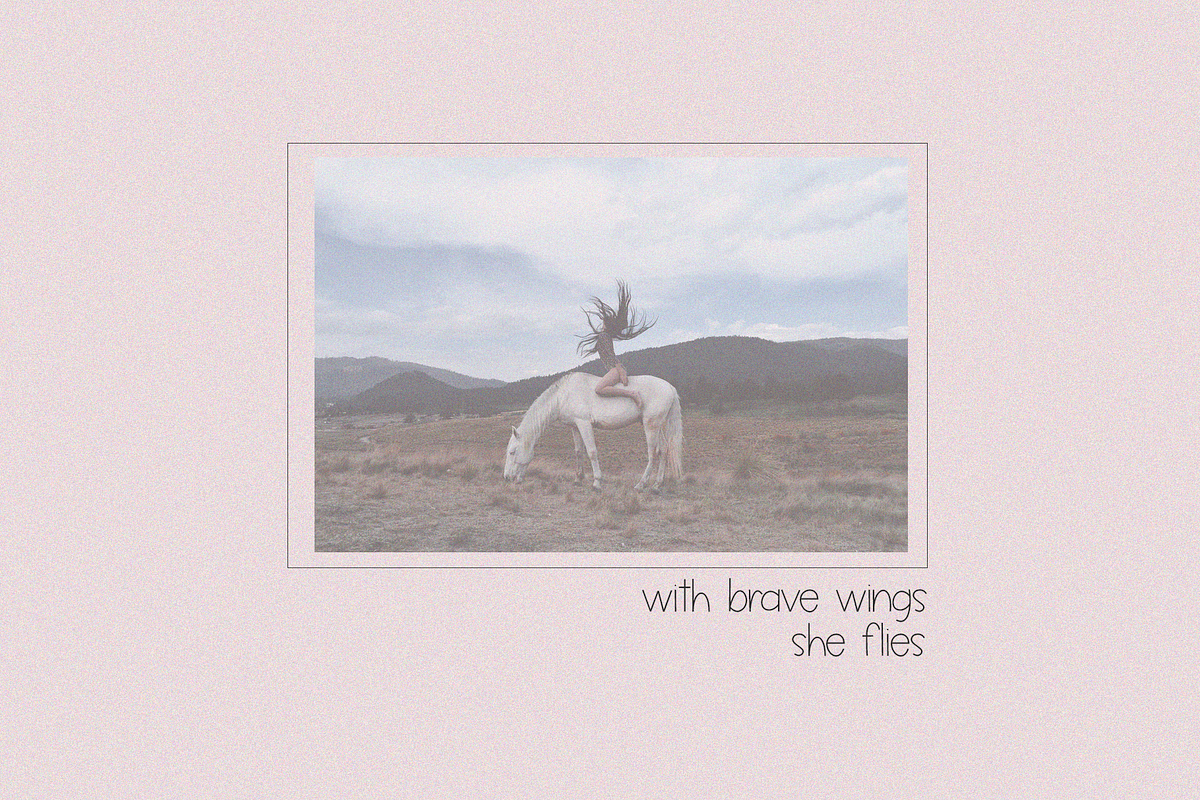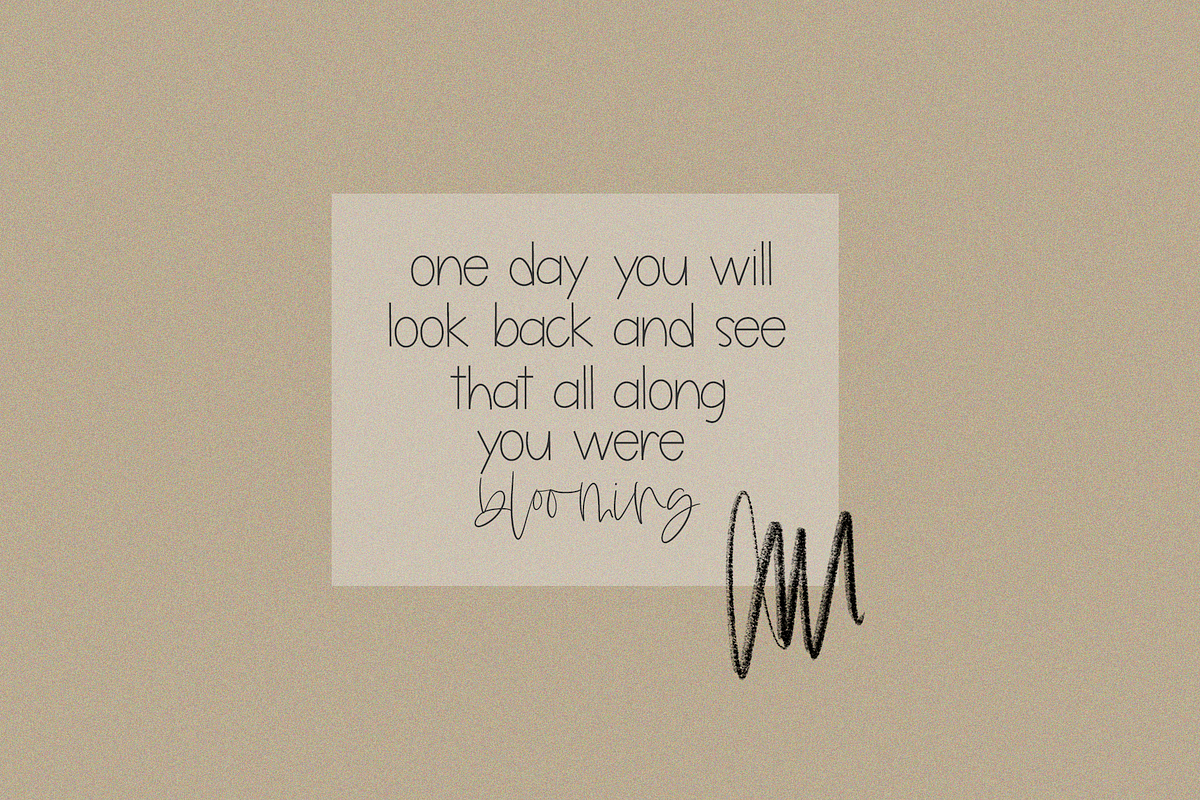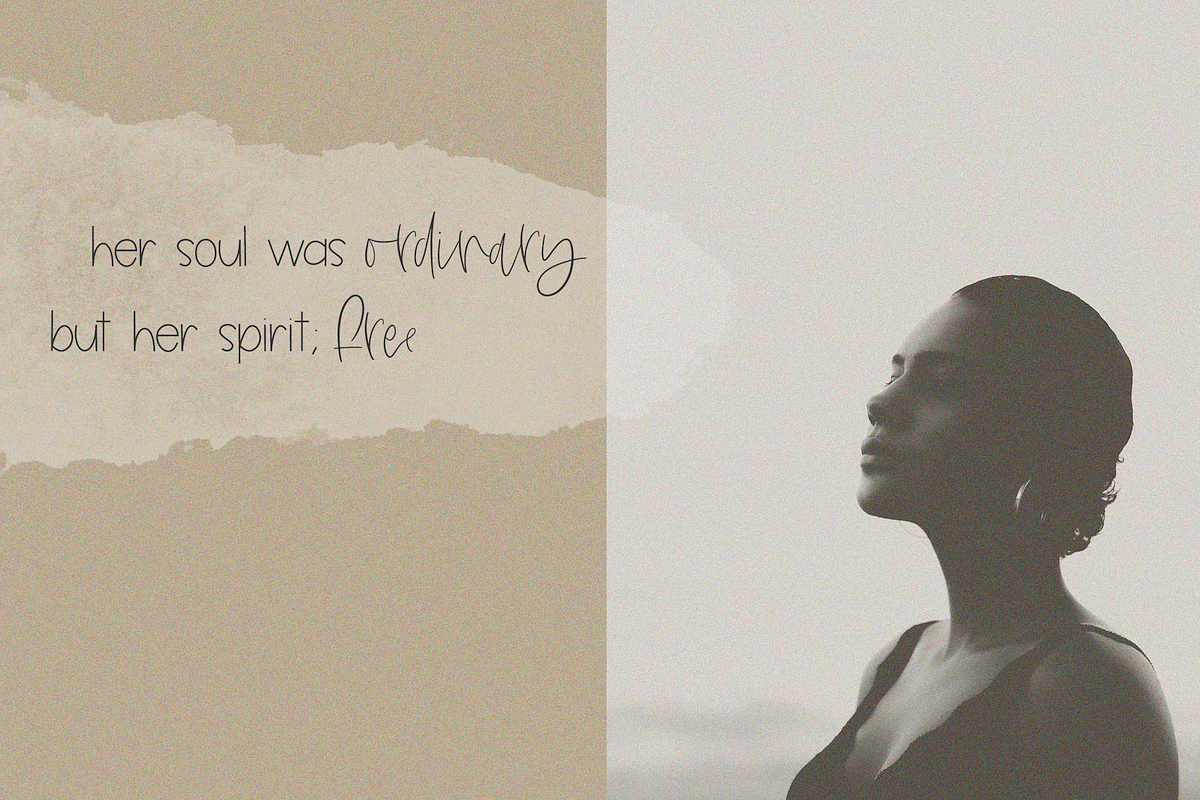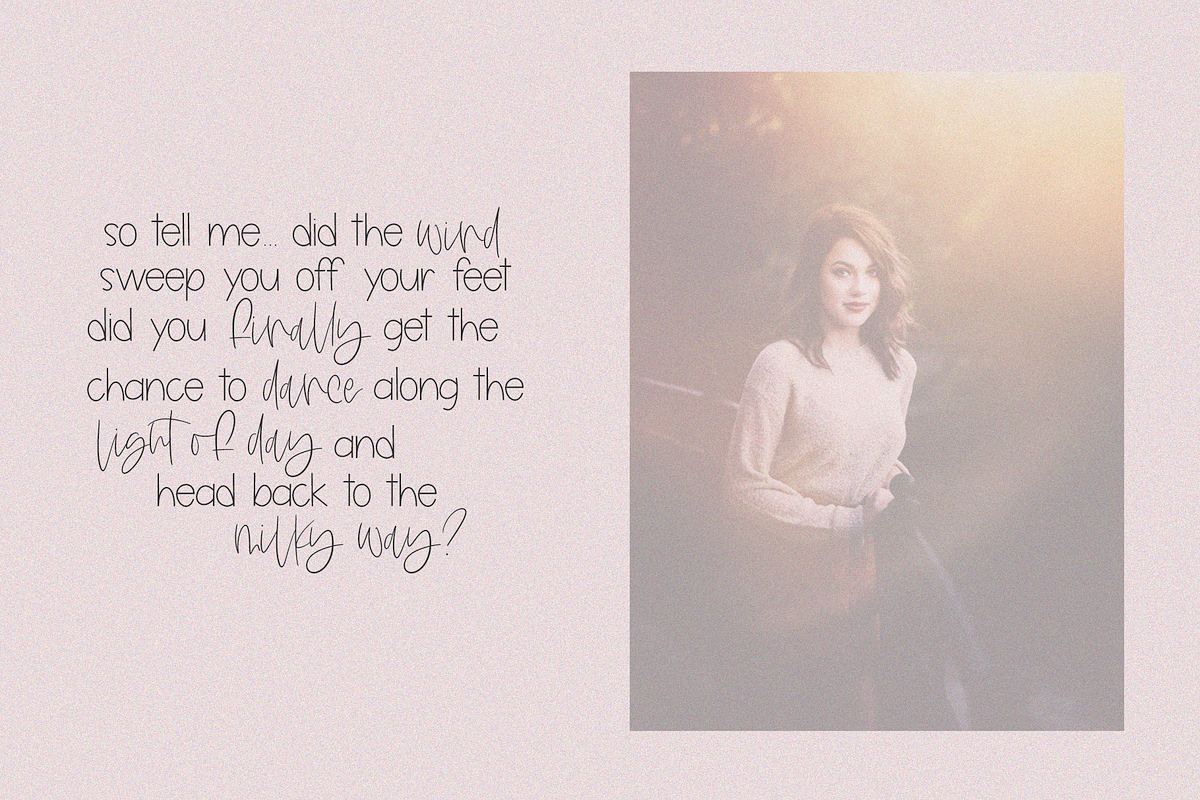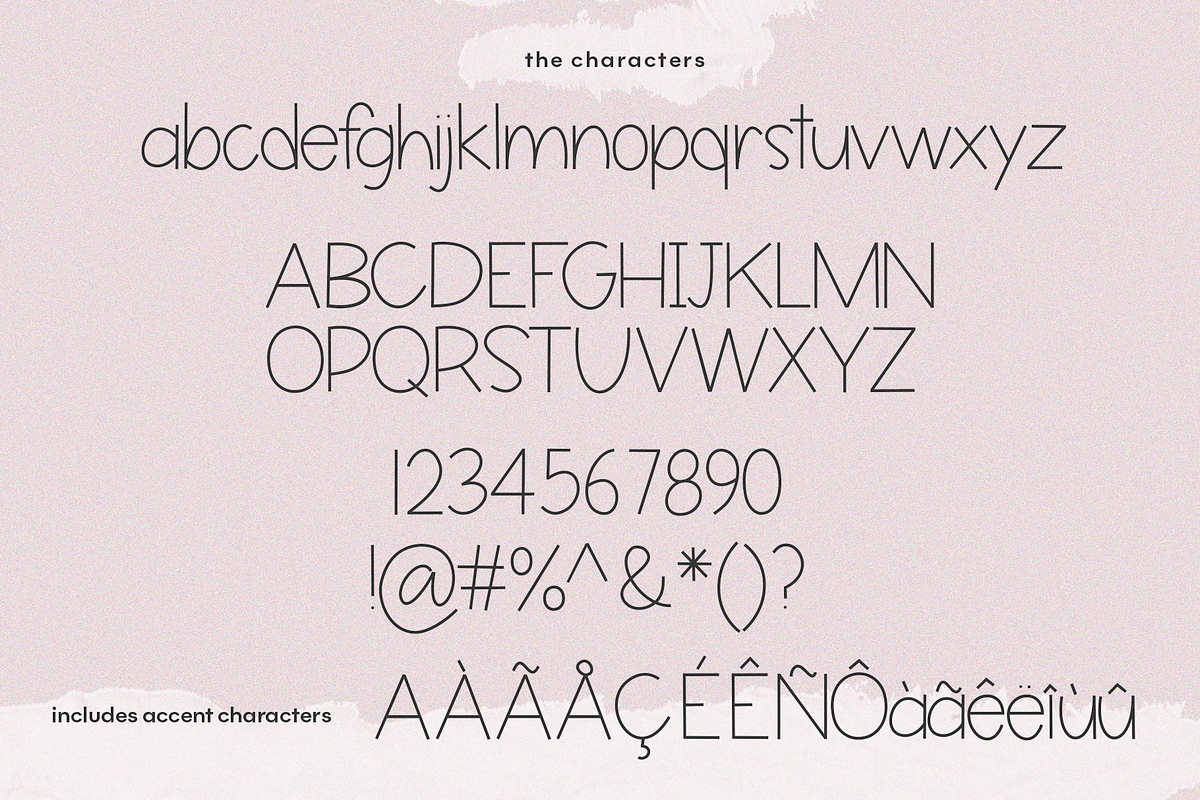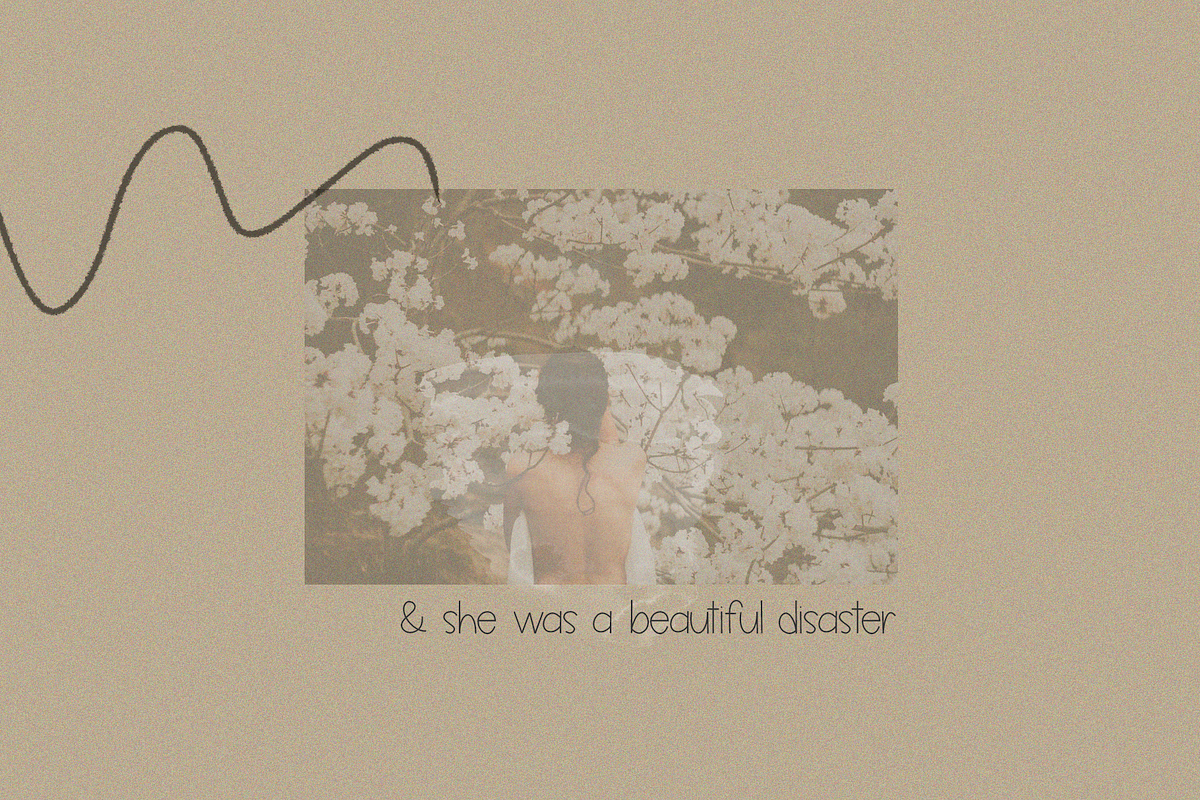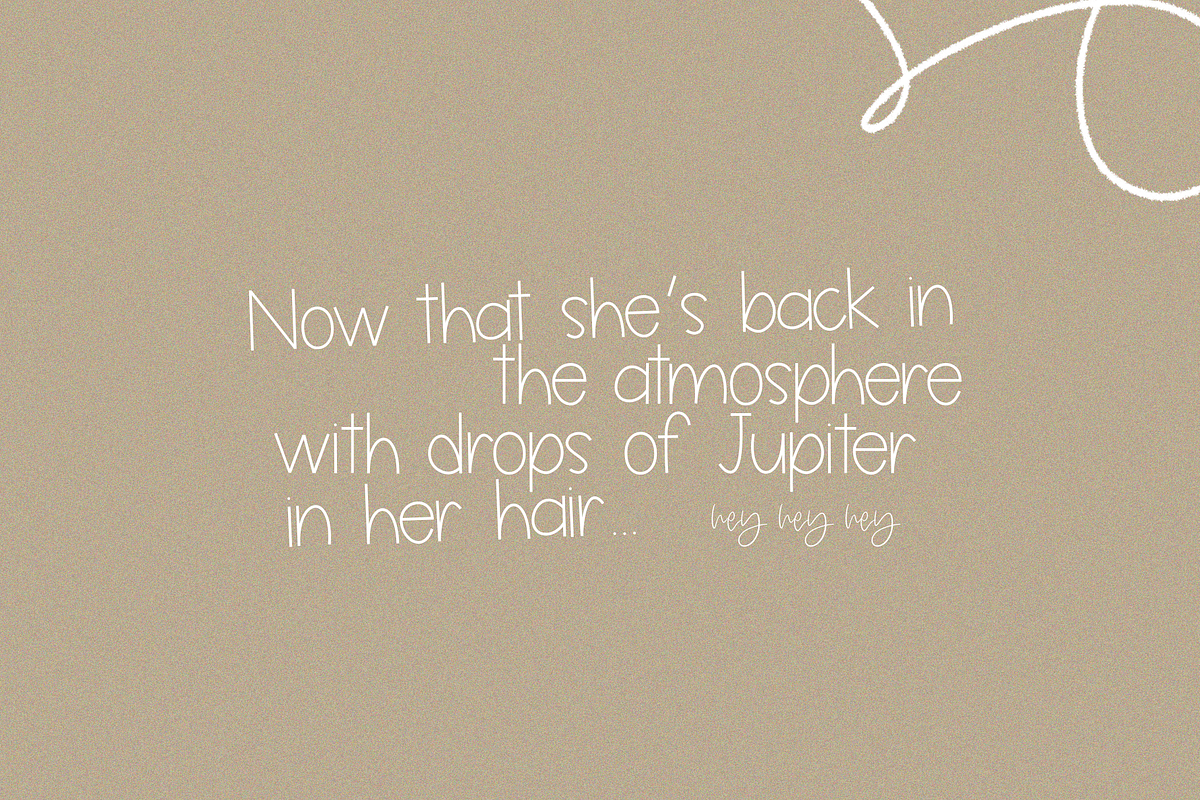
Butterflies - A Handwritten Font
Butterflies is a thin & neatly printed, handwritten font.
This font is perfect for quotes, shirts, mugs, headings, logos, invitations and more!